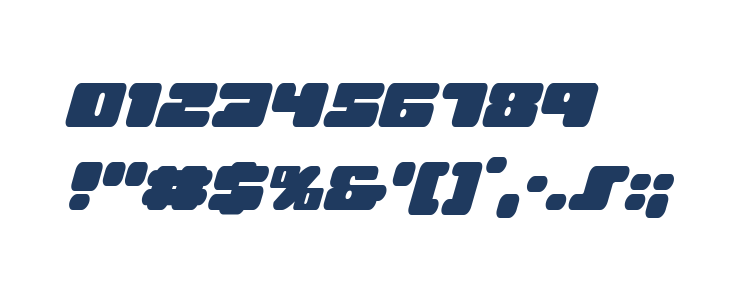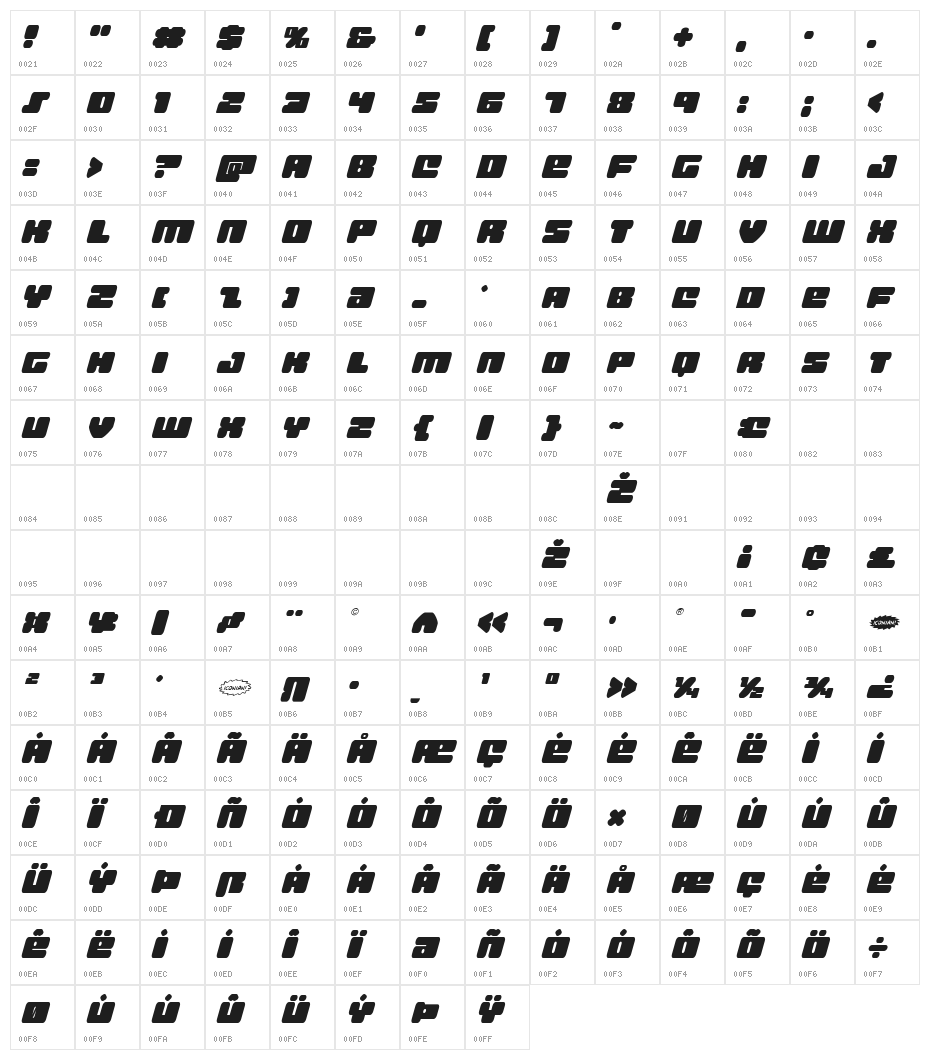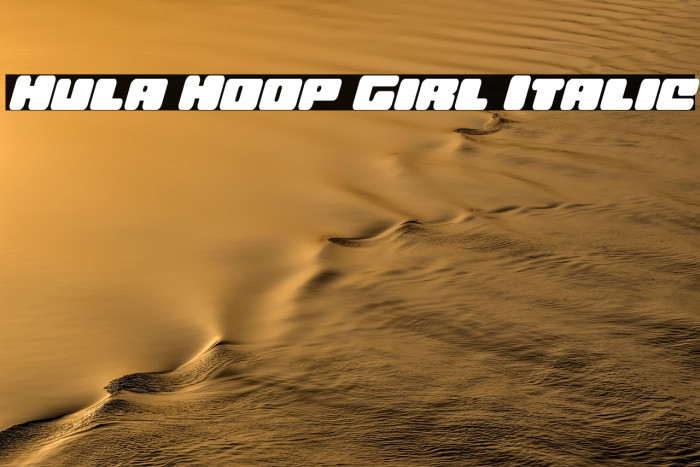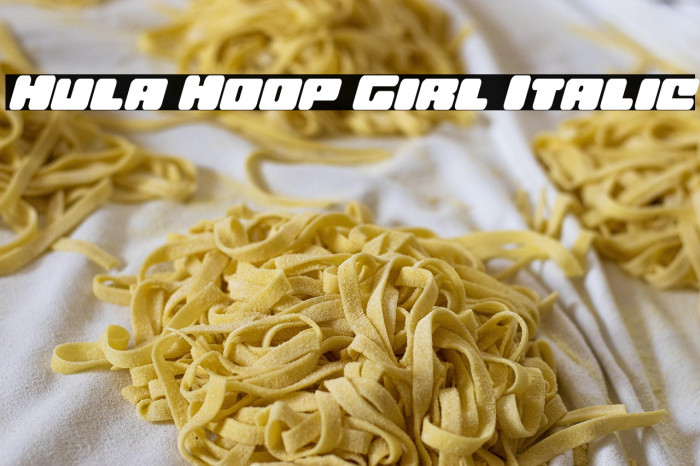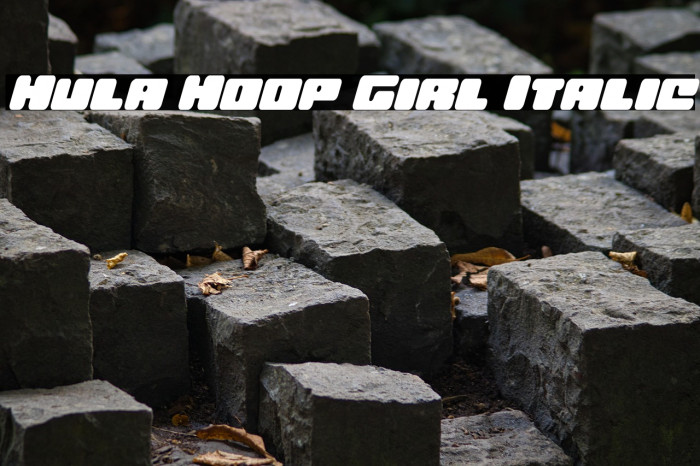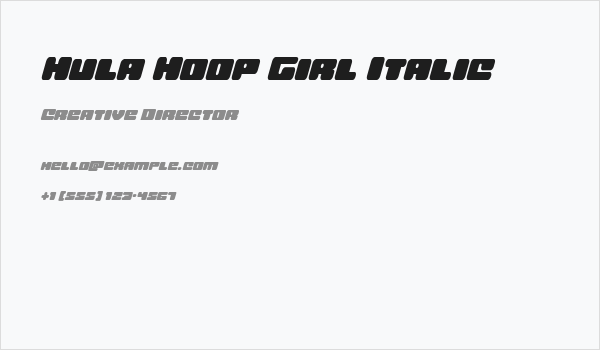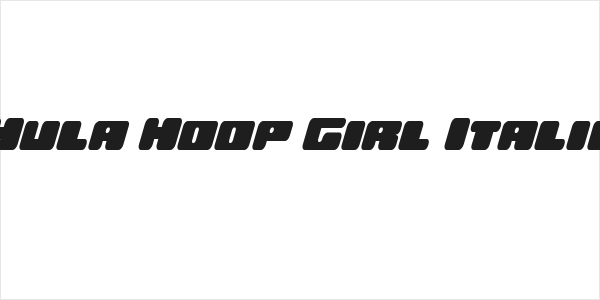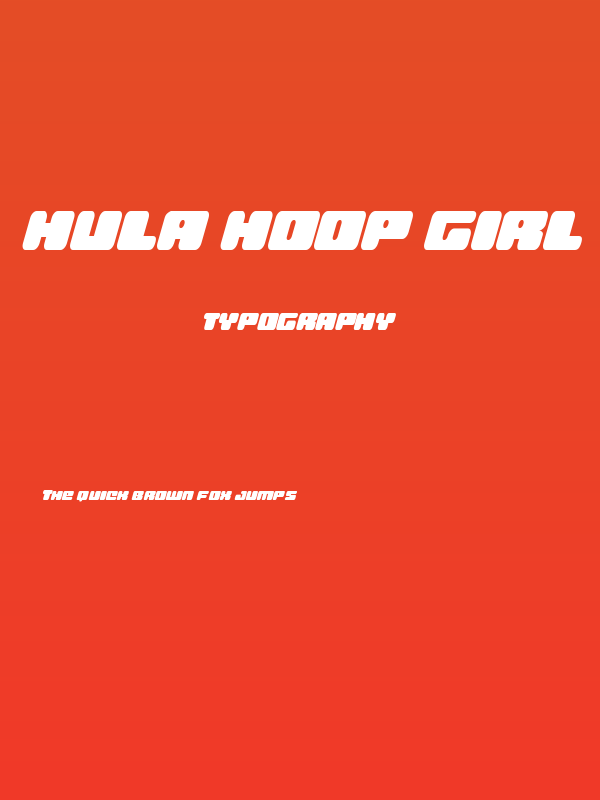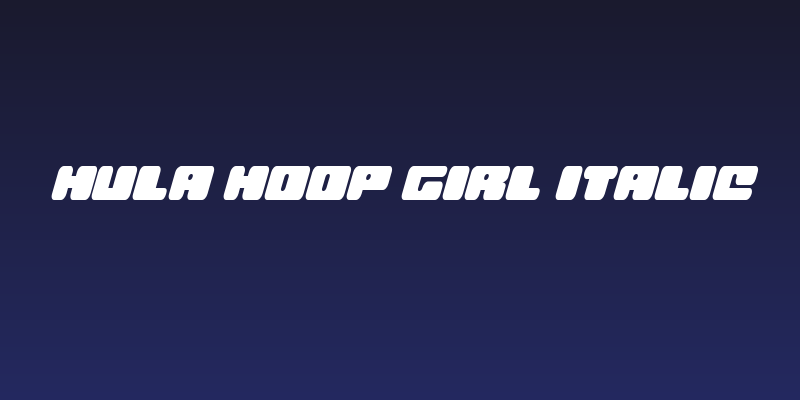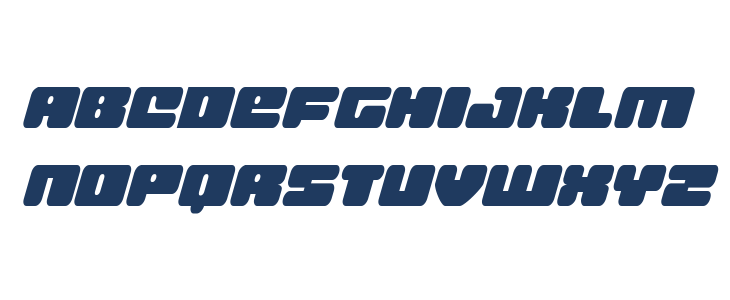
Hula Hoop Girl Italic Font
Hula Hoop Girl Italic Description
This font features a bold, rounded style with a playful and dynamic appearance. The characters are slightly slanted, giving an italicized effect that adds movement and energy. The thick strokes and rounded edges create a sense of friendliness and approachability. The font maintains consistent weight throughout, ensuring readability while providing a unique visual impact. Its geometric shapes and smooth curves make it suitable for modern and creative designs. The spacing between characters is tight, enhancing its compact and cohesive look.
| Proposed Projects | Ideal for branding, posters, headlines, and any creative projects that require a bold and energetic typeface. |